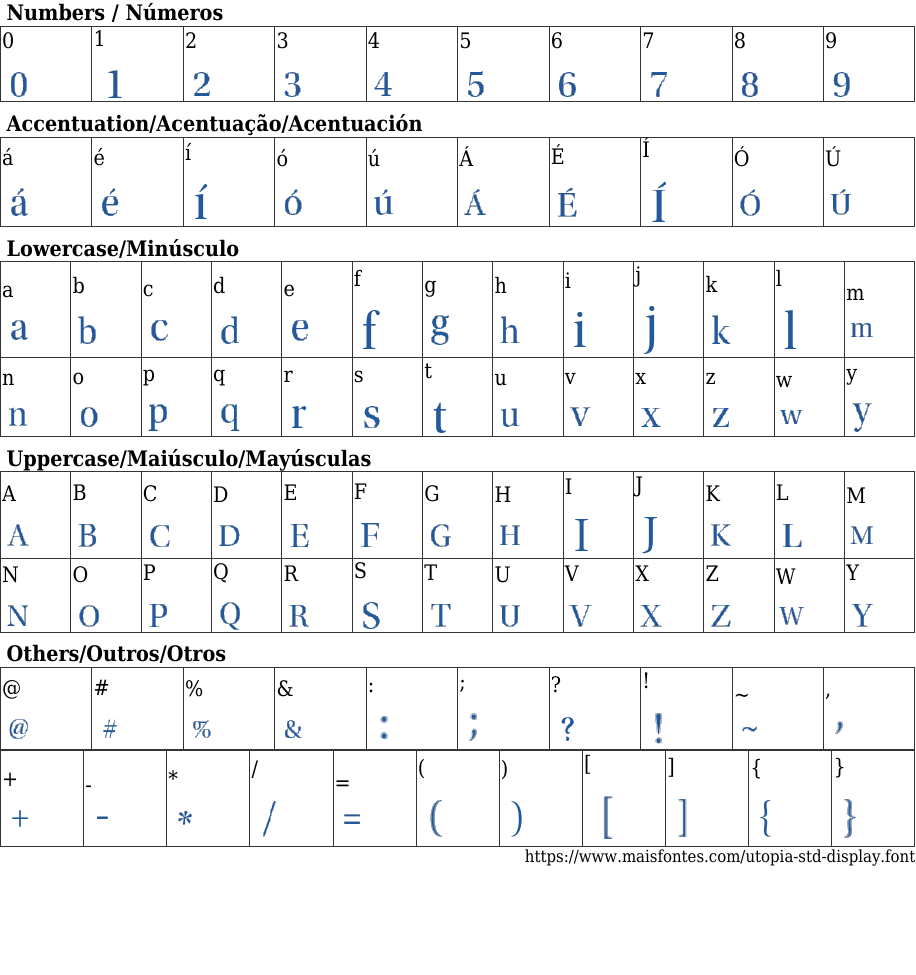
Utopia Std Font Upfonts Trademark utopia is either a registered trademark or a trademark of adobe systems incorporated in the united states and or other countries. designer robert slimbach. Utopia is an adobe originals text face designed by robert slimbach in 1989. it combines the vertical stress and pronounced stroke contrast of eighteenth century transitional types like baskerville and walbaum with contemporary innovations in character shapes and stroke details. Download utopia std font for pc mac for free, take a test drive and see the entire character set. moreover, you can embed it to your website with @font face support. Please see the details of the utopia std font below. the details includes the note of the author, license type and the representation of the font in [a z], [a z], [0 9] characters.
Utopia Std Font This font is from the utopia std family and we found 10 variations. click on the page link below to learn more about the variations or click directly on the fonts to download and test the typographies on your project. Download fonts from the utopia std family. This font features a classic serif design with elegant, well defined strokes. the characters have a traditional appearance with moderate contrast between thick and thin lines, providing a timeless and professional look. 'find my font' is an easy to use application for identifying fonts in digital images.